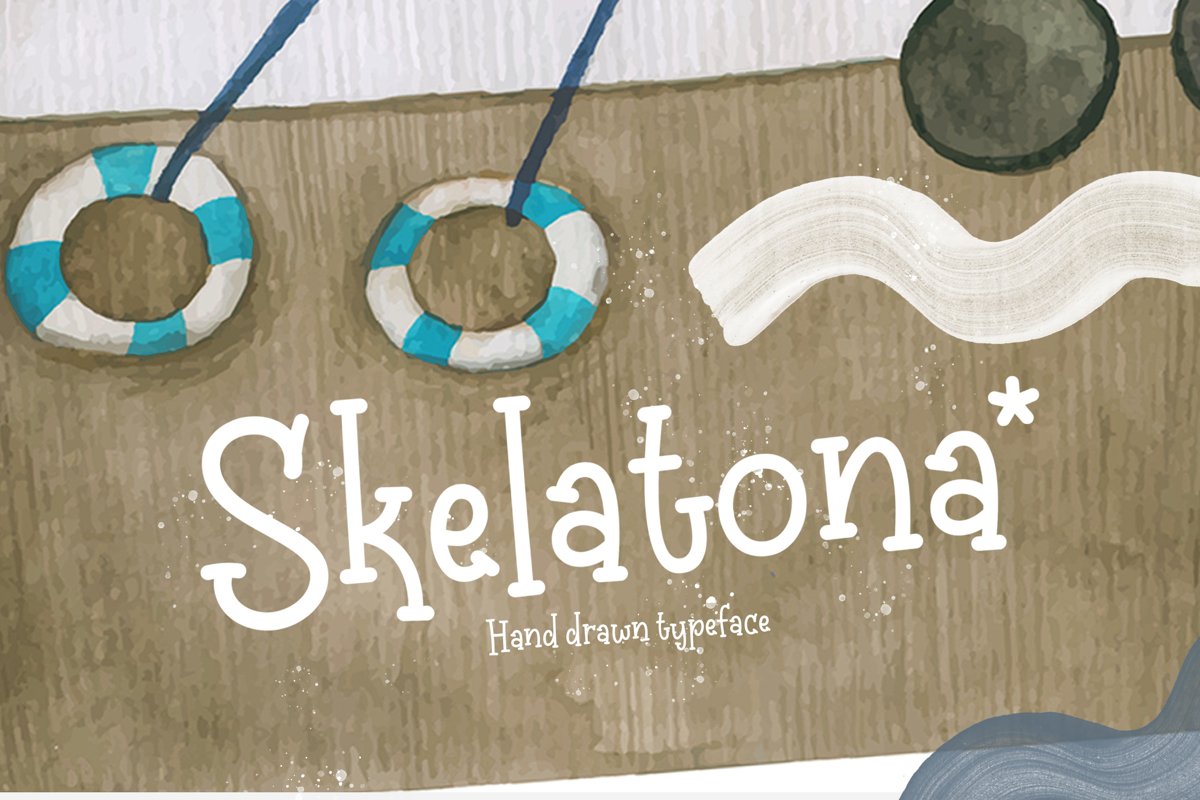
Skelatona is a fun hand drawn font. Perfect for display, poster, quotes, crafting needs, florist needs, wedding needs, business card, signature, packaging, merchandise, branding, logo, logotype, header, tittle, and many more.